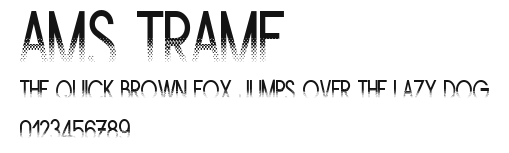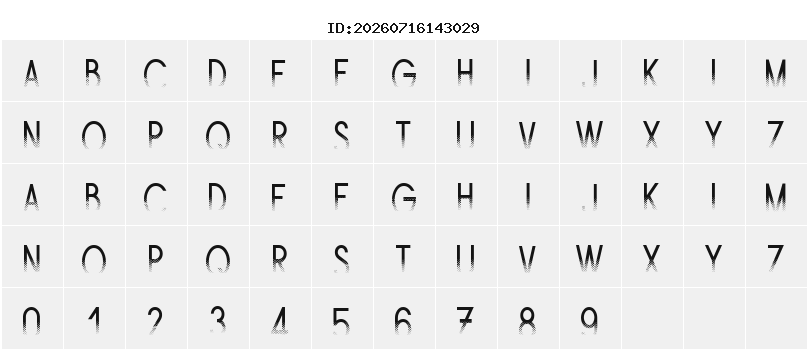
Ams Trame.ttf is a modern, elegant sans-serif font designed for ultimate readability and visual harmony. Perfect for branding, headlines, web design, and print materials.